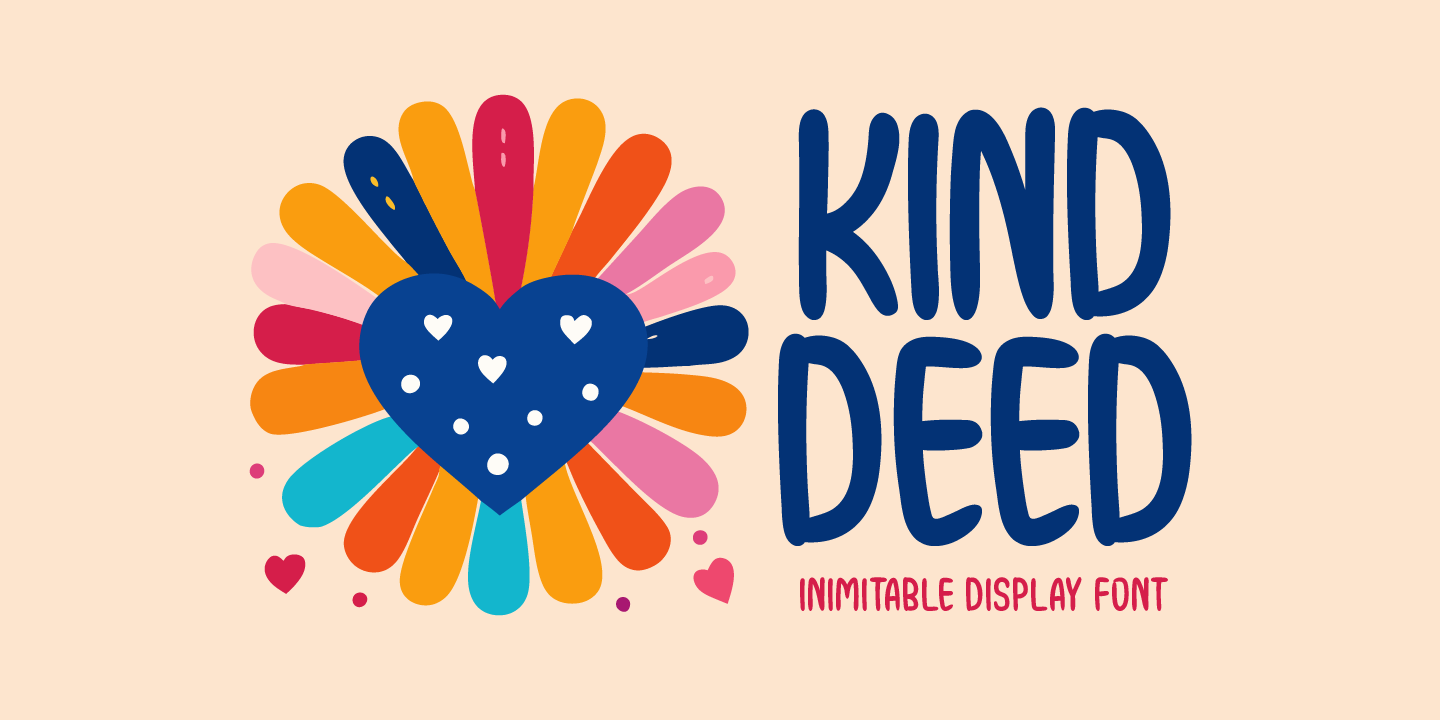
KIND DEED
Designed by Md. Shohail Bhuiyan, Kind Deed is a display sans font family published by Seemly Fonts.
Kind Deed is a standout display font that adds a sophisticated touch to your projects because of its unique charm. This typeface is great for adding a polished and elegant look to site headers, photo frames, promotional flyers, album covers, posters, and image sliders. It works well on anything from stationery and logos to clothing and printed materials.